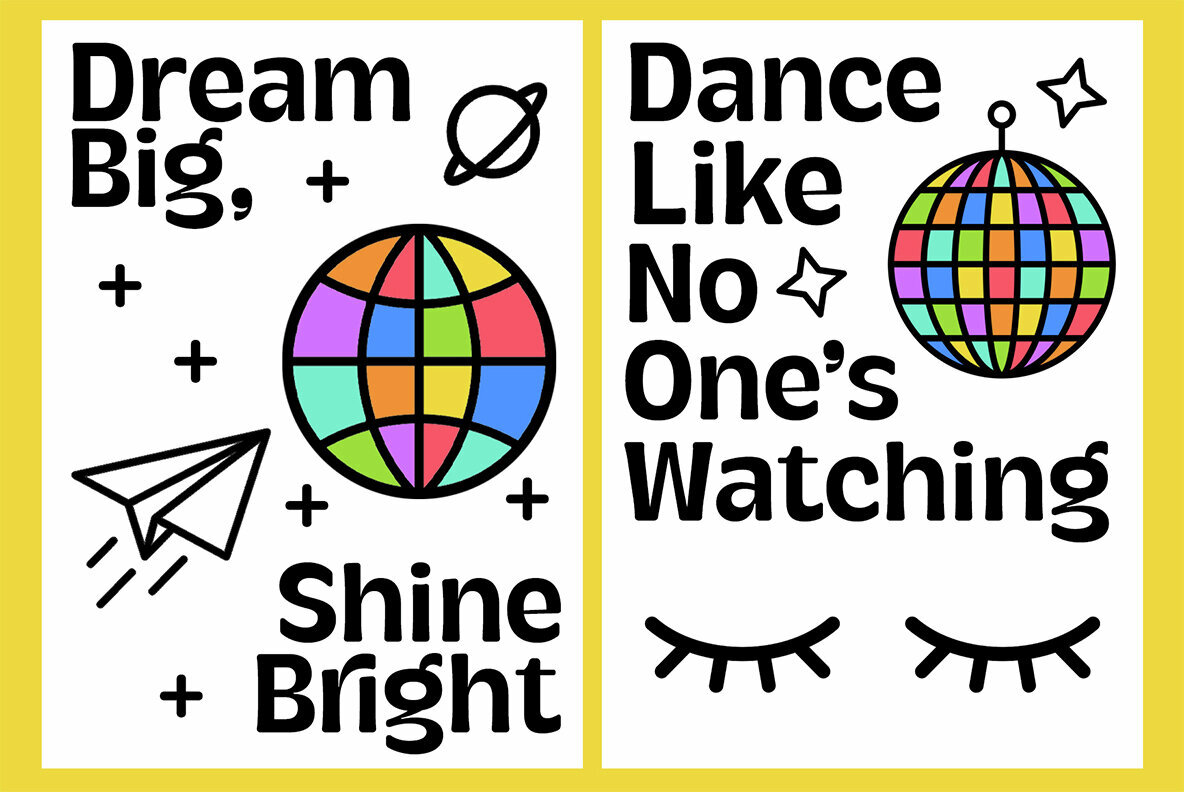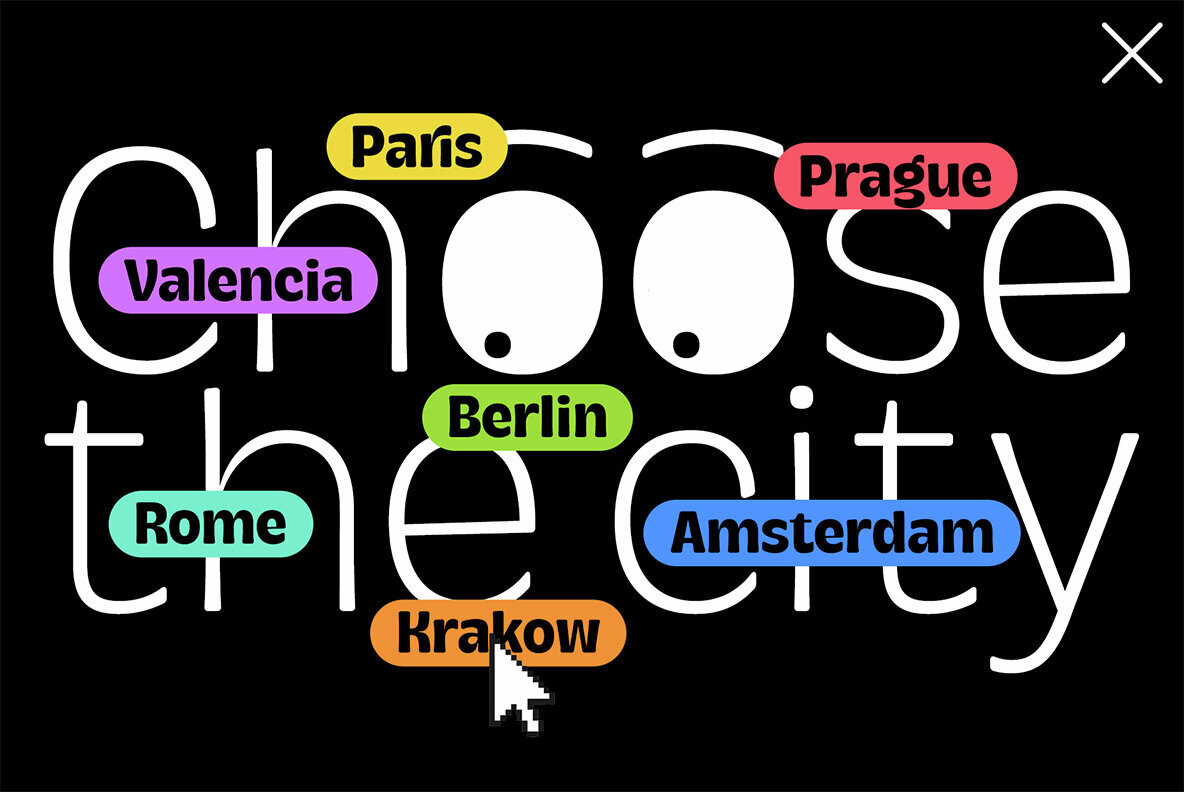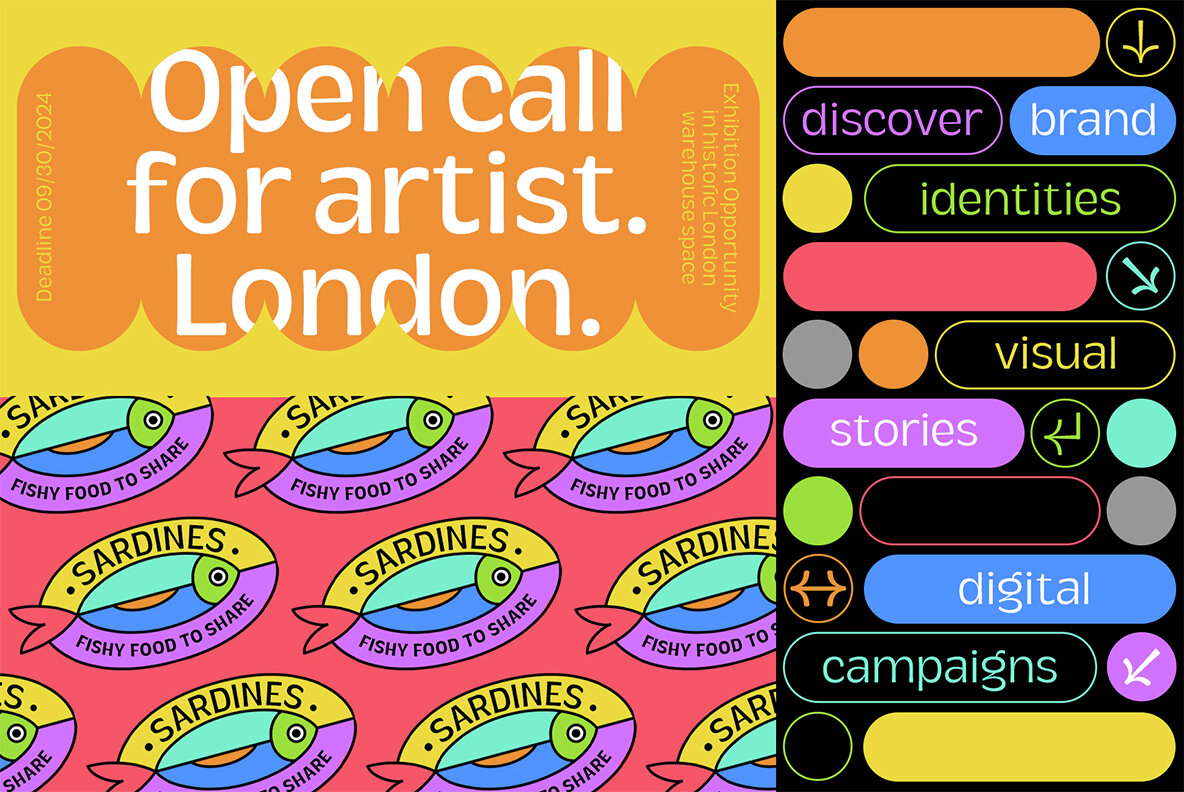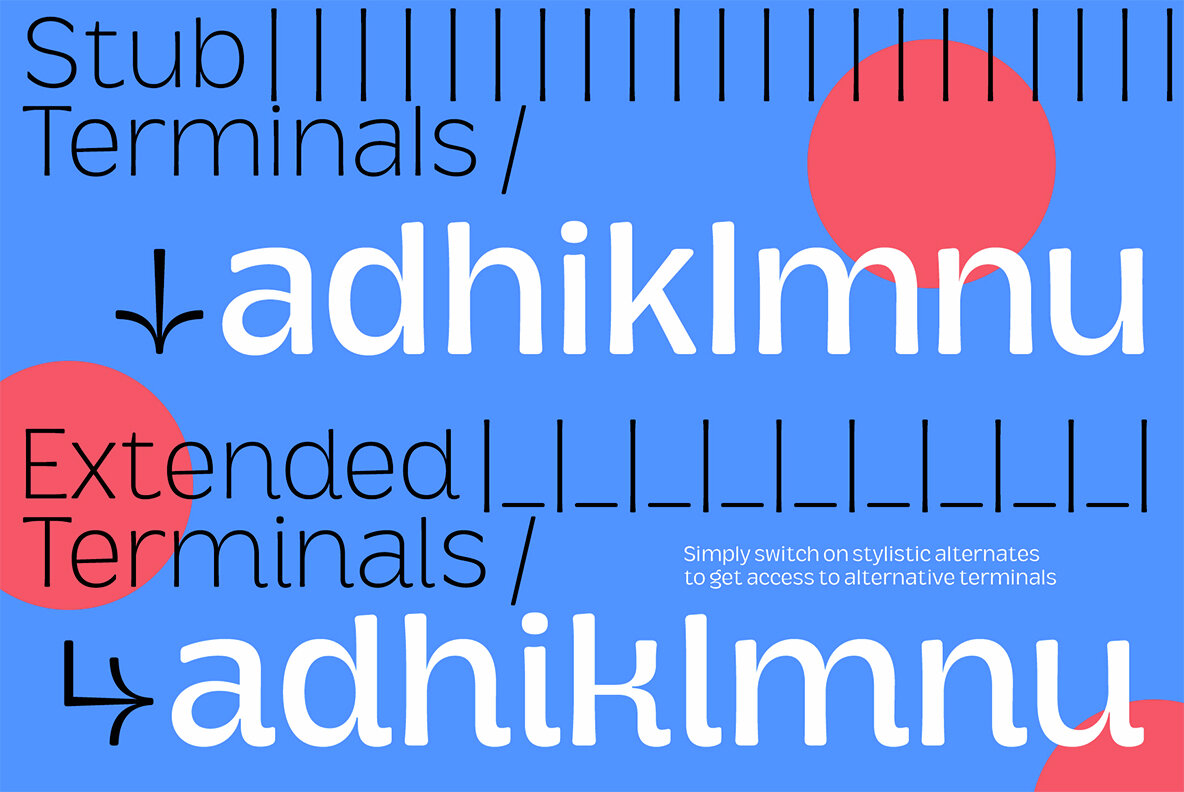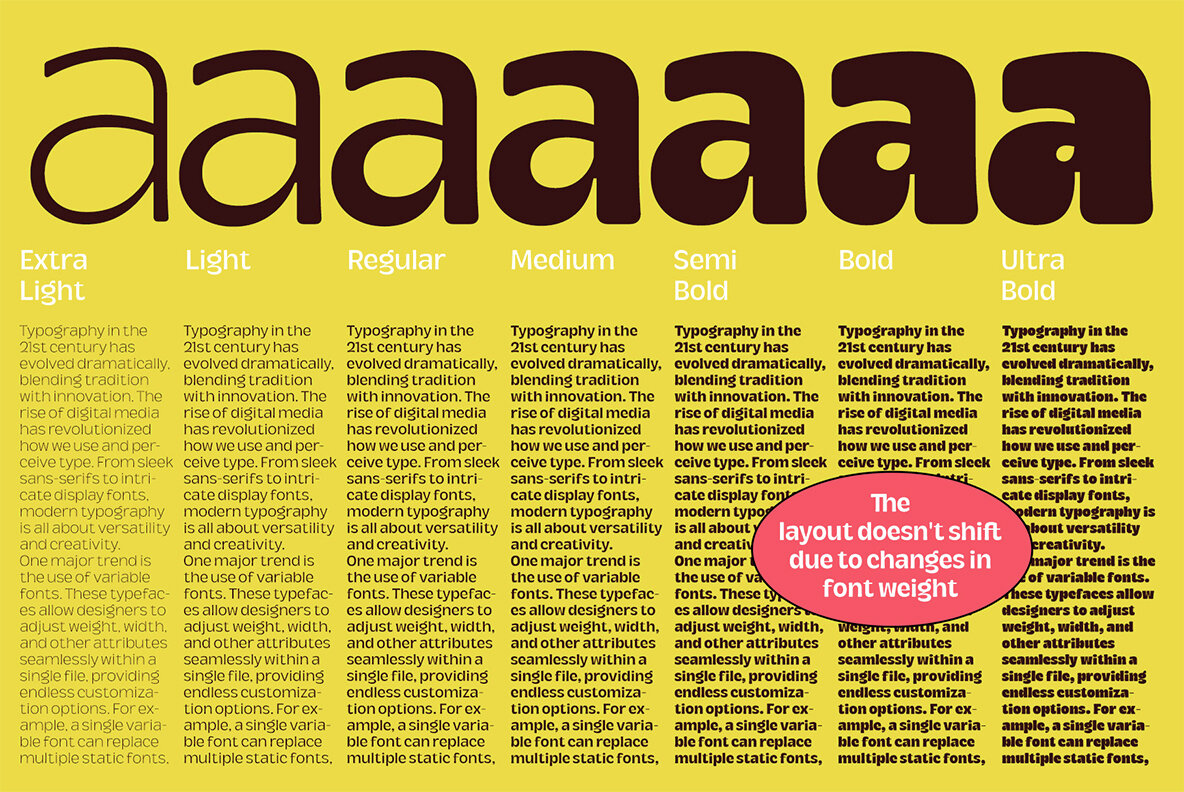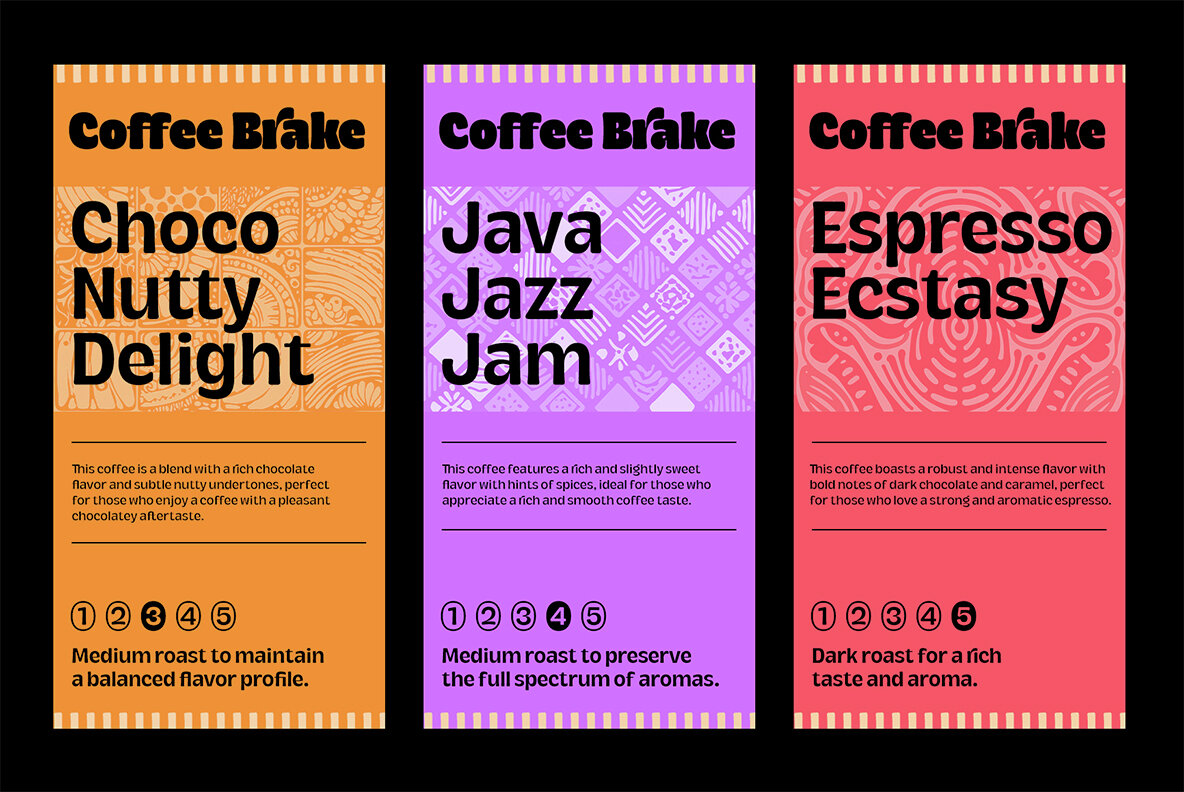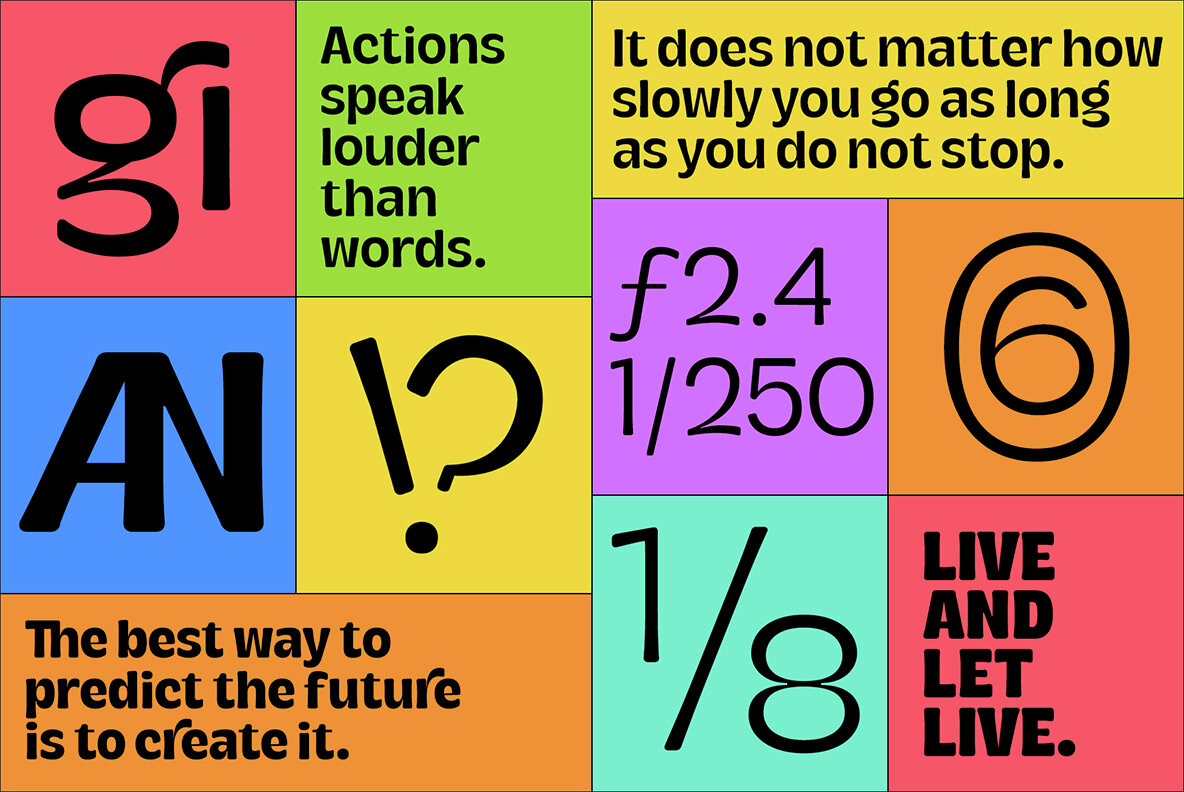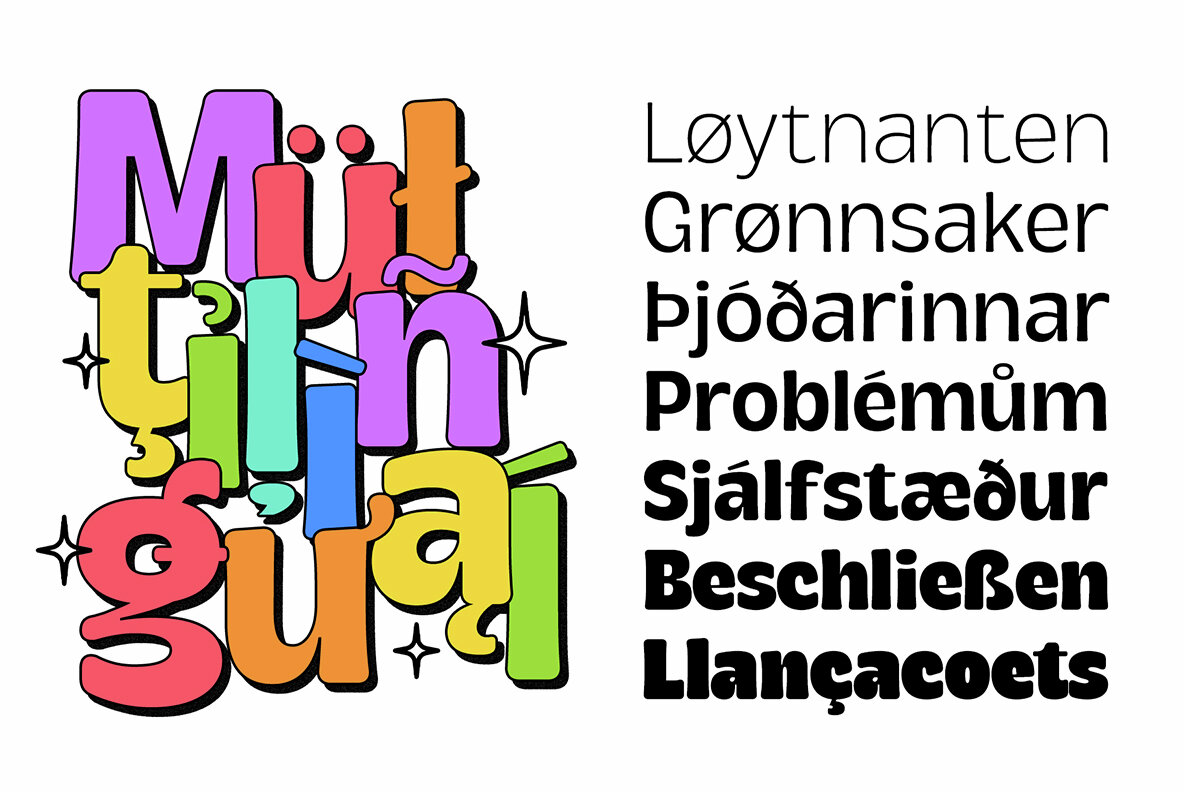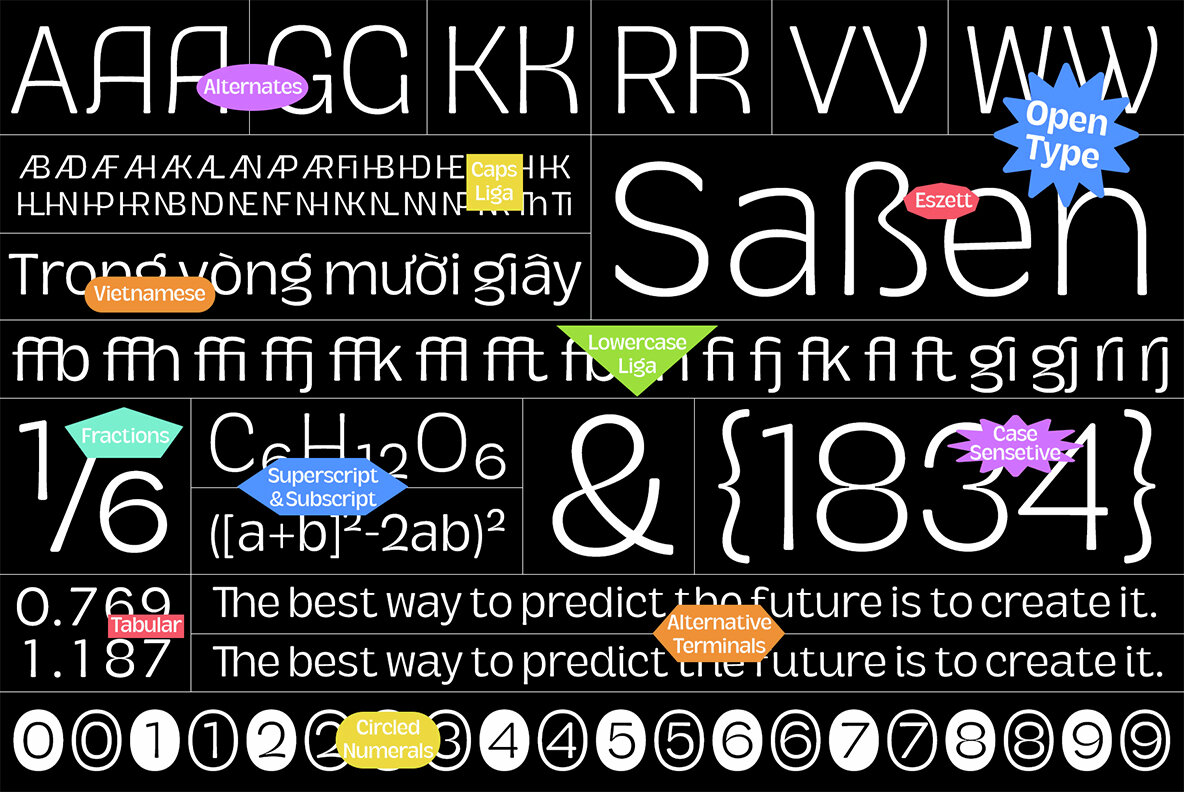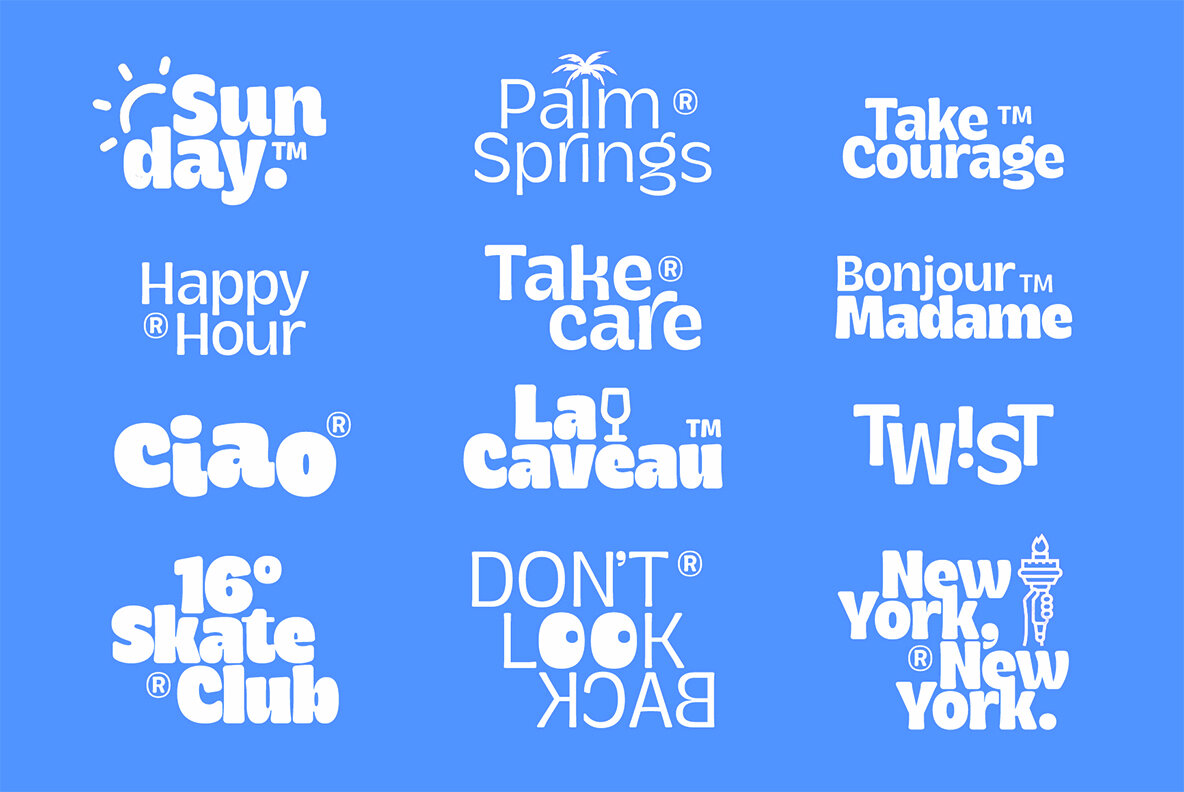
DT Serifia Soft Font
Meet DT Serifia – a fun sans-serif that'll brighten your day with quirky and super stylish typography. With seven weights, it's ready for anything – whether it's a tiny text snippet, a subheading, or a headline! It'll set the perfect vibe for your ad campaign, give your mobile app or website, jazz up your exhibition poster, or draw in customers from your product packaging. With a bunch of thickness options, you can use this typeface for all kinds of projects. Plus, loads of OpenType features will make your work really stand out. - OT Features: Stylistic Alternates, Ligatures, Fractions, Tabular Numerals, Case Sensitive Forms, Subscript, Superscript, Circled Numerals, Arrows. 130+ Languages support.